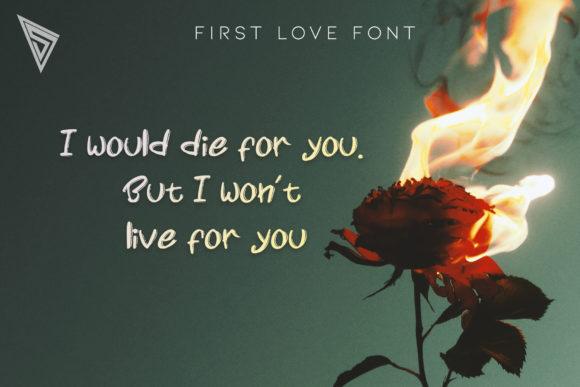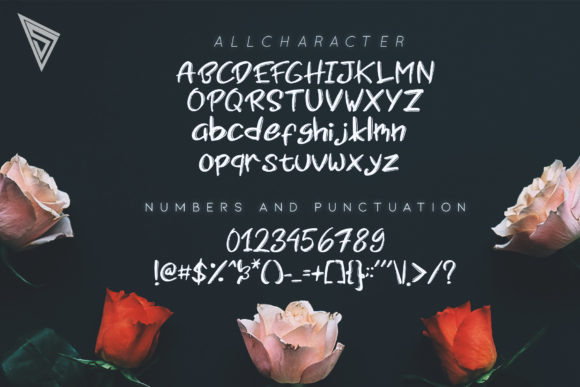
The Magic of First Love Font: A Designer’s New Best Friend
I still remember the time I was working on a project for a client who wanted a font that was casual, yet elegant; simple, yet impactful. I scoured the internet, tried out countless fonts, but nothing seemed to fit the bill. That was until I stumbled upon First Love Font. It was love at first sight! 💕 This beautifully crafted handwritten font has been a game-changer for my designs, and I’m excited to share its awesomeness with you.
First Love Font: The Perfect Companion for Your Creative Projects
First Love is a casual and simple lettered handwritten font that can easily be matched to an incredibly large set of projects. Its versatility makes it an excellent addition to your font library, allowing you to add a personal touch to your creative ideas and make them stand out!
- ✅ Easy to read and understand, even at small sizes
- ✅ Perfect for both digital and print projects
- ✅ Highly versatile and can be used for a wide range of designs, from wedding invitations to social media graphics
- ✅ Simple, yet elegant; casual, yet sophisticated
- ⚠️ Limited availability of stylistic alternates and glyphs compared to some other fonts
- ⚠️ May not be the best fit for very formal or corporate designs
The Story Behind First Love Font: Designer Inspiration
First Love Font was created with the intention of crafting a beautiful and versatile handwritten font that could be used for a wide range of designs. The designer wanted to create a font that was both simple and elegant, casual and sophisticated. The result is a font that is perfect for anyone looking for a reliable and stylish font for their creative projects.
| Font Name | First Love Font |
| Author | Senekaligrafi Font |
Q: What type of projects is First Love Font best suited for?
A: First Love Font is a versatile font that can be used for a wide range of projects, from wedding invitations and social media graphics to blog posts and presentations.
Q: Is First Love Font available in different weights or styles?
A: Currently, First Love Font is available in a single weight. However, the designer may release additional weights or styles in the future.